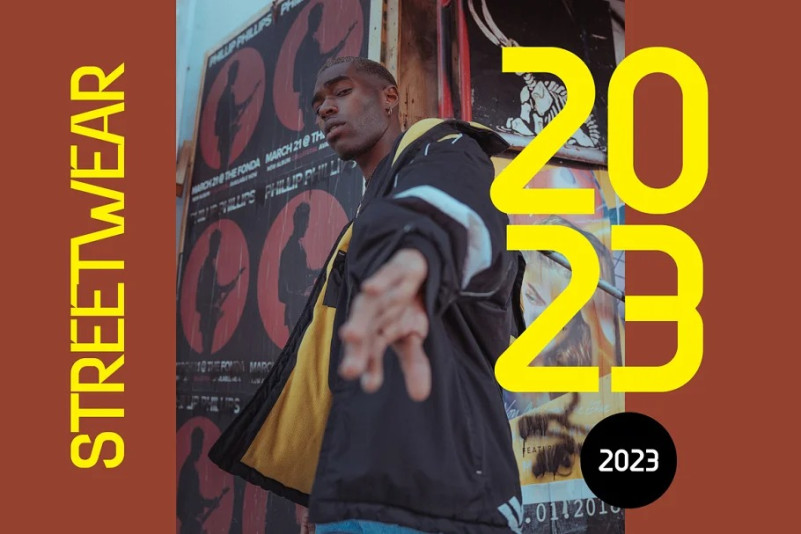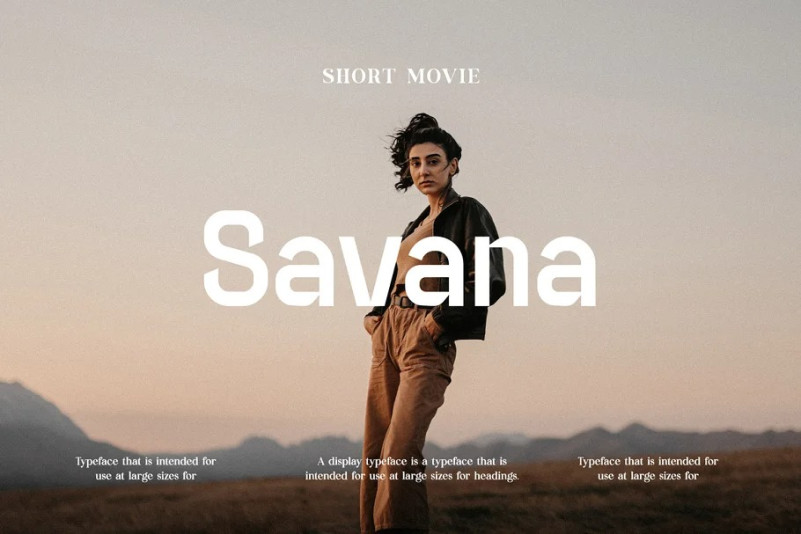
Pixabler Font
Pixabler Font – Modern Retro Sans Serif. Modern Display font that feels beautiful classy, elegant, and modern. This font is ideally suited for a wide variety of projects, such as signature, stationery, logo, wedding, typography quotes, magazine or book covers, website headers, clothing, branding, packaging design, and more. Also, fashion-related branding or editorial design displays both masculine and feminine qualities.